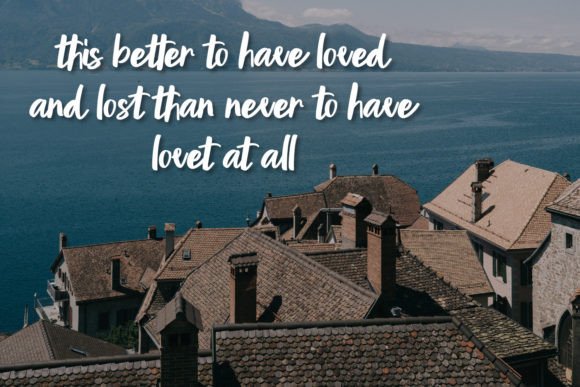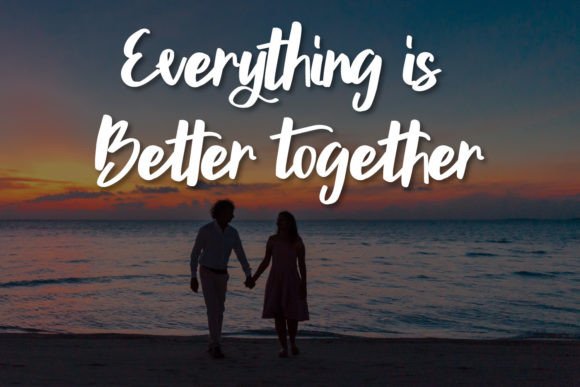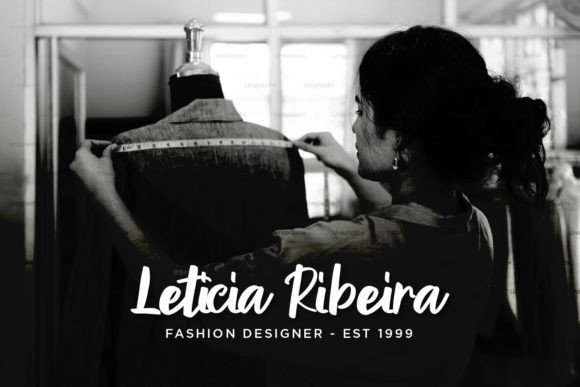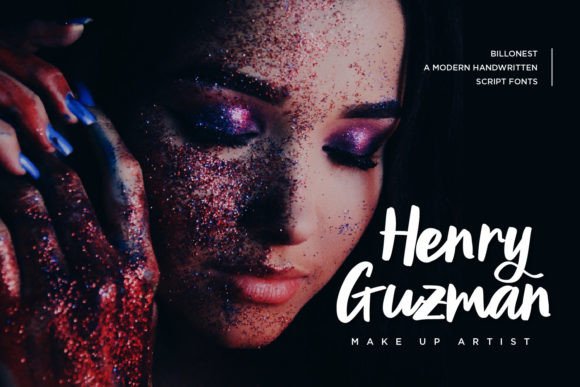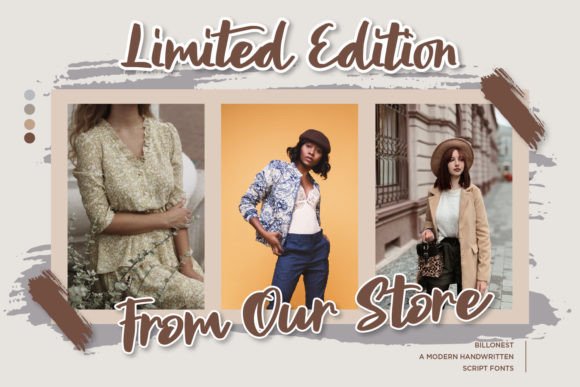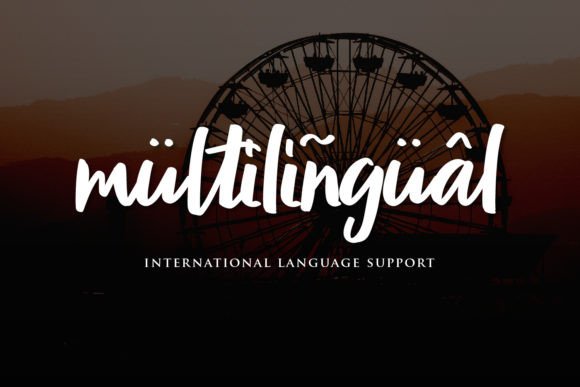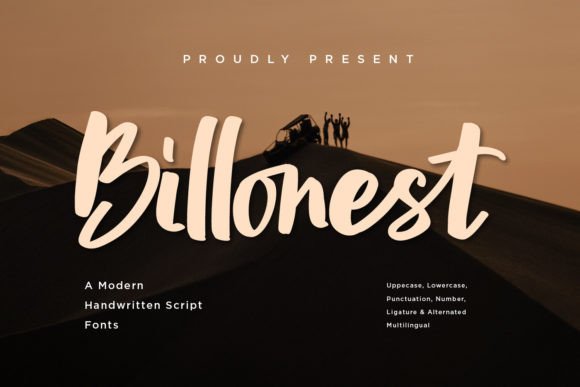
Introducing Billonest Font: The Perfect Blend of Sophistication and Playfulness
In the world of typography, fonts play a crucial role in conveying the tone and personality of a brand, design, or message. For designers and crafters looking for a modern and stylish handwritten script font, Billonest is an excellent choice. This beautiful font combines sophistication with a touch of playfulness, making it perfect for a wide range of applications, from branding and invitations to fashion-related designs.
The Characteristics of Billonest Font
Billonest font is characterized by its fluid and flowing characters, which create a sense of movement and energy. The font’s clean and sleek lines add a contemporary edge, making it ideal for designers who want to add a touch of modernity to their work. The fluidity of the font also gives it a dynamic and lively feel, perfect for designs that require a bit of playfulness and whimsy.
What Makes Billonest Font Stand Out
So, what sets Billonest font apart from other handwritten script fonts? Here are a few key features that make it a standout:
- Unique and Elegant Letterforms: Each letterform in Billonest font is carefully crafted to be unique and elegant, with a focus on fluid lines and smooth curves.
- Modern and Sophisticated: Despite its playful undertones, Billonest font exudes a sense of sophistication and modernity, making it perfect for high-end branding and designs.
- Highly Versatile: Billonest font can be used for a wide range of applications, from digital designs to print materials, and from branding to invitations and more.
Perfect for Branding, Invitations, and Fashion-Related Designs
Billonest font is particularly well-suited for designs that require a touch of elegance and charm. Here are a few examples of how this font can be used:
- Branding: Use Billonest font to create a sophisticated and modern brand identity that stands out from the crowd.
- Invitations: Add a touch of elegance and whimsy to your invitations with Billonest font, perfect for weddings, parties, and other special events.
- Fashion-Related Designs: Billonest font is a great choice for fashion-related designs, such as fashion branding, magazine layouts, and product packaging.
Tips for Using Billonest Font Effectively
To get the most out of Billonest font, here are a few tips to keep in mind:
- Use it as a Headline Font: Billonest font is perfect for headlines and titles, where its unique and elegant letterforms can really shine.
- Experiment with Colors and Textures: Don’t be afraid to experiment with different colors and textures to add depth and interest to your designs.
- Pair it with Other Fonts: Billonest font pairs well with a range of other fonts, so don’t be afraid to get creative and try out different combinations.
In conclusion, Billonest font is a modern and stylish handwritten script font that is perfect for designers and crafters looking to add a touch of sophistication and playfulness to their work. With its fluid and flowing characters, clean and sleek lines, and unique and elegant letterforms, Billonest font is a versatile and effective choice for a wide range of applications. Whether you’re working on a branding project, creating invitations, or designing fashion-related materials, Billonest font is sure to make a lasting impression.